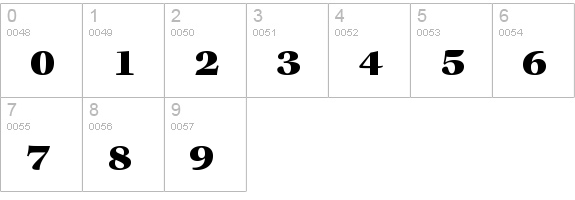
Kepler Std Black Extended Caption Font Details
Kepler Std Black Extended Caption is a maximum-weight, dramatic, extended-width variant in the Kepler typeface family \xE2\x80\x94 well suited to maximum-impact headlines, posters, and packaging.
Kepler Std Black Extended Caption is a remarkable font that exudes elegance and sophistication. Its bold and extended characters make a strong visual impact, making it an excellent choice for headlines and captions that demand attention. The clean and sleek design of this font adds a touch of modernity to any project, while its legibility ensures ease of reading. What sets Kepler Std Black Extended Caption apart is not just its stunning aesthetics, but also its availability as a free download. Yes, that's right! This incredible font is freely available to download at FontsMarket.com. This means that you can effortlessly add this premium font to your design arsenal without breaking the bank. Whether you're a professional designer looking to enhance your typographic toolbox or a casual user in search of a font that stands out, Kepler Std Black Extended Caption is the perfect choice. Its versatility allows it to be used in various creative projects, such as branding, advertising, packaging, and more. So why wait? Experience the beauty and power of Kepler Std Black Extended Caption for yourself. Head over to FontsMarket.com and grab your free download today. Elevate your designs and make a lasting impression with this exceptional font.